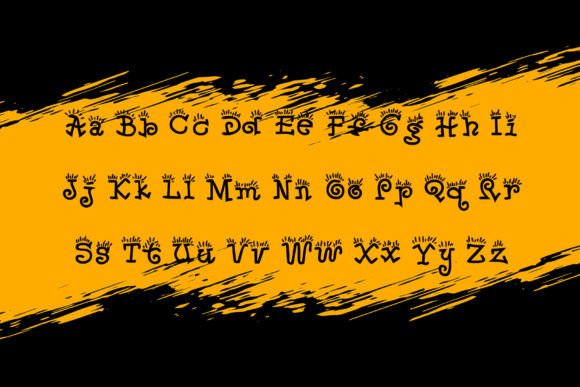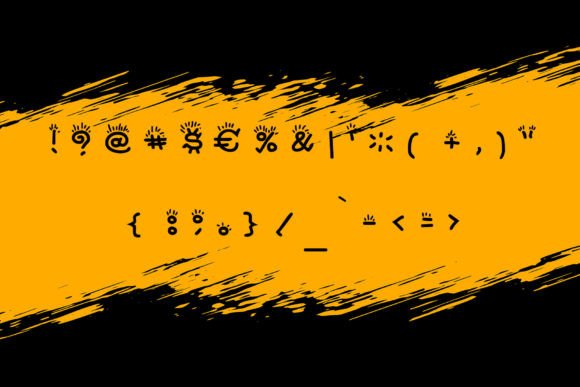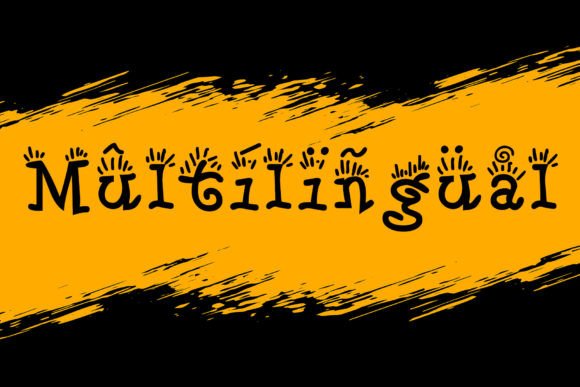
Introduction to Patupom Font
You know that moment when you’re brainstorming ideas for a new design project, and you’re stuck on the perfect font? The one that will make your creative vision pop and leave a lasting impression on your audience? For designers like you, finding the perfect font can be a game-changer. That’s why we’re excited to introduce you to the Patupom Font, a fun and quirky display font that’s sure to add a unique touch to your next creative project.
With its whimsical flair, the Patupom Font is a valuable addition to any designer’s toolkit. Whether you’re working on a logo, a poster, or a social media campaign, this high-quality font is sure to elevate your design and make it stand out from the crowd. And the best part? You can download the Patupom Font for free, giving you a transparent background and endless possibilities for your creative project.
- High-quality design resource perfect for creative projects
- Designed to provide a unique and creative touch for your design work
- High-resolution font with clear and legible characters
- Perfect for use in digital design, including web design and graphic design
Honest Review: Patupom Font
I recently had the chance to work with the Patupom Font, and I must say it’s a great addition to any designer’s toolkit. This free download is perfect for those looking for a unique design resource.
- ✨ High-quality design: The Patupom Font is beautifully crafted, with a clear and transparent background that makes it easy to work with.
- ✨ Versatile: This font is perfect for creative projects that require a touch of elegance and sophistication.
- ⚠️ Limited customization options: While the font is high-quality, it’s not particularly customizable, which may be a drawback for some designers.
- ⚠️ Not suitable for large-scale projects: The Patupom Font may not be the best choice for projects that require a lot of text, as it can be difficult to read at larger sizes.
Overall, I’m impressed with the Patupom Font. It’s a great design resource for creative projects, and its high-quality design makes it a pleasure to work with. While it may have some limitations, I think it’s definitely worth checking out for any designer looking for a unique and elegant font.
To get the most out of Patupom Font, experiment with different font sizes, colors, and styles to create unique and eye-catching designs. Also, consider using the font in combination with other design elements, such as images and graphics, to create a cohesive and engaging visual identity.
Patupom Font is commonly used in creative projects, such as:
- Branding and marketing materials
- Digital art and graphics
- Print design and publishing